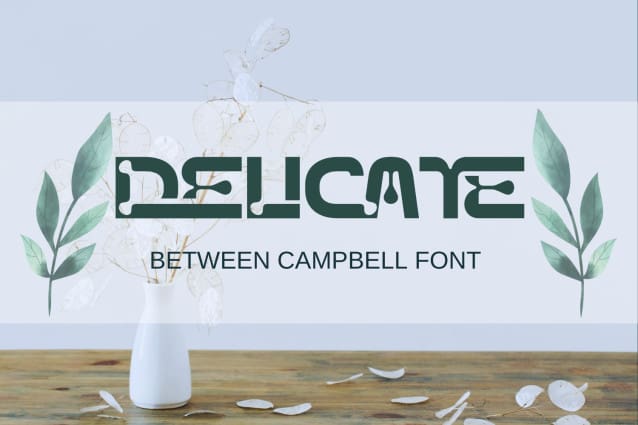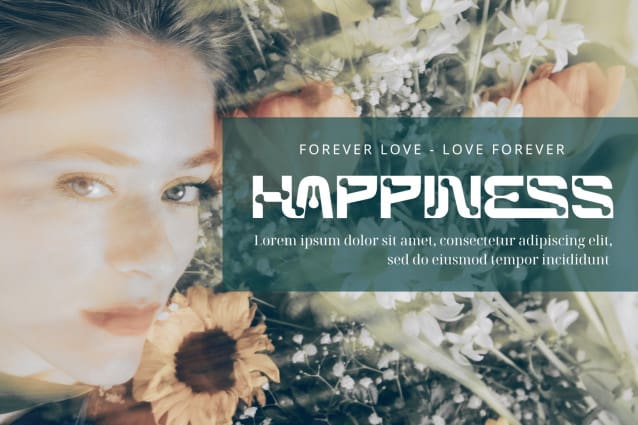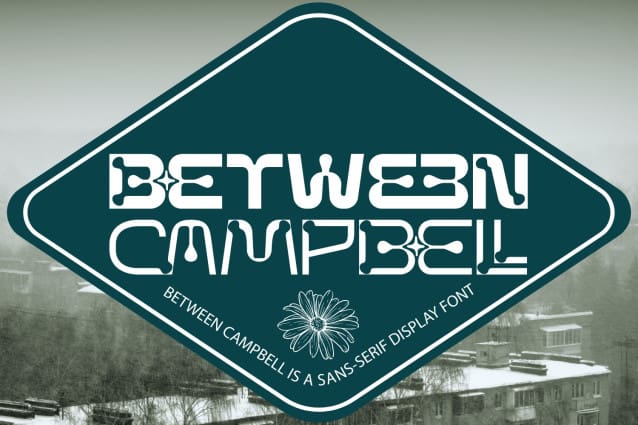
Between Campbell Font
Between Campbell Font is a quirky all caps display font that is perfect for display type and contemporary branding. It has just enough eye-catching letters to pull the reader in and make them smile. Trendy, elegant, luxury, modern, retro & unique style sans serif & serif font for your new fancy projects. Lot of ligatures will help you to create unique and original logo design or website header! Enjoy 🙂
Between Campbell was built with OpenType features and includes 100 ligatures, alternate, numbers, punctuation, and it also supports other languages.
AC AD AL AN AR AS AT AU AV BE CA CE CH CO CT DE DI EA EC ED EE EL EM EN EP ER ES ET FE FO FR GE HA HE HI HO IE IC IL IN IO IR IS IT JU KE LA LE LI LL LO LY MA ME MI NC ND NE NG NO NT NS OC OF OM ON OO OP OR OT OU OW PA PR RA RD RE RI RO RS RT SE SH SI SO SS ST TA TE TH TI TO TR TT UM UN UR VE WI WO